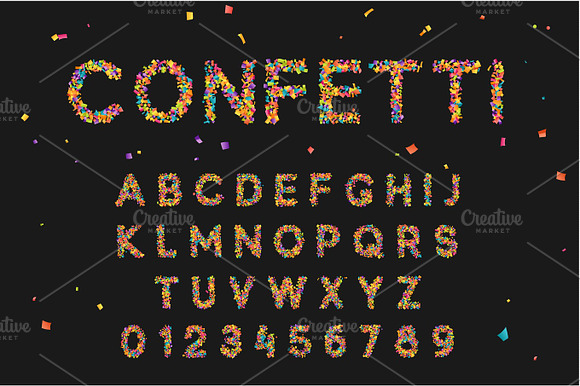
Colorful font from confetti
Why Colorful font from confetti is worth a look
Colorful font from confetti by Modern vector fits naturally into Branding, posters, packaging, typography.